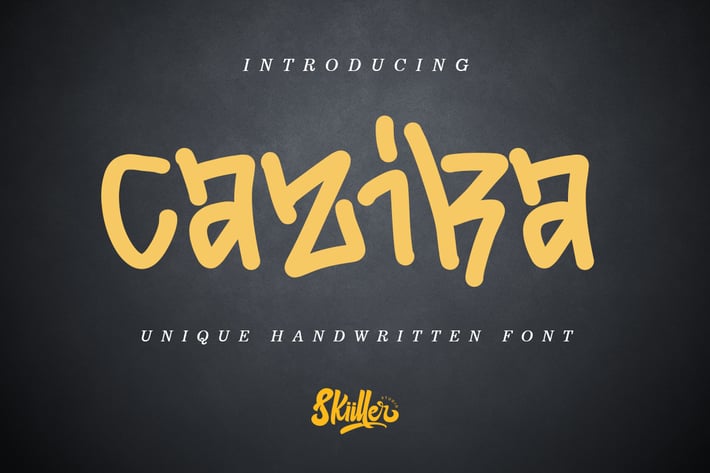
Cazika - HAndwritten Font
Cazika a handwritten font. This font will very suitable for your fun project like children party, cute quotes, or any cute fun related projects. Grab it now !